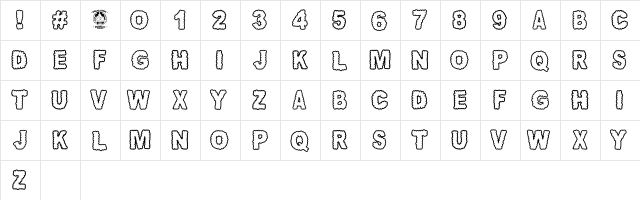
AWAN NUSANTARA Regular
Design Context for AWAN NUSANTARA Typeface
AWAN NUSANTARA is a composed and adaptable typeface that performs quietly and consistently across a wide range of design contexts.